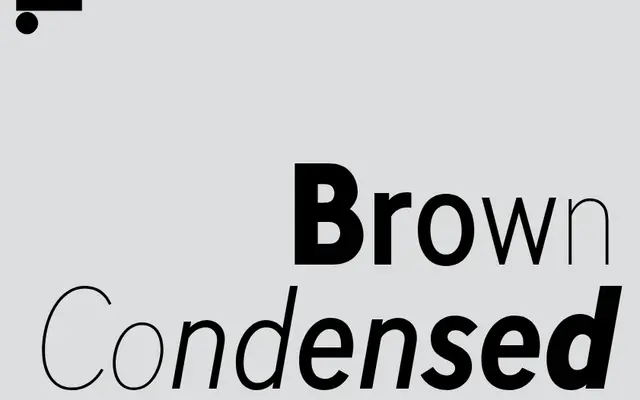
LL Brown Condensed
Lineto · Aurèle Sack · 2022
A condensed companion to LL Brown, Aurèle Sack's geometric sans drawn from the shared heritage of Johnston Sans and Super Grotesk.
Published in spring 2022 after Sack revisited an earlier abandoned project, LL Brown Condensed offers six weights from Thin to Black, each with an italic, in a tighter proportion alongside the matching Narrow cuts. The family sits within the broader LL Brown super-family, itself built on the formal principles of Edward Johnston's 1916 Underground lettering and Arno Drescher's 1930 Super Grotesk. Coverage extends to Latin, Cyrillic and Greek, making it practical for multi-script European work.
Descended from Johnston Sans and Super Grotesk, two canonical geometric sans serifs; the Condensed sub-family maintains the geometric construction and humanist warmth of the parent LL Brown.